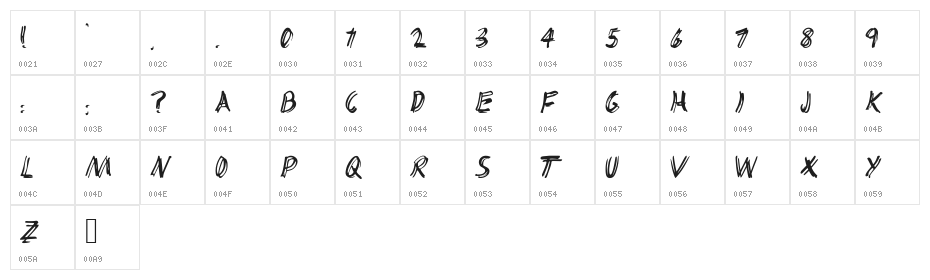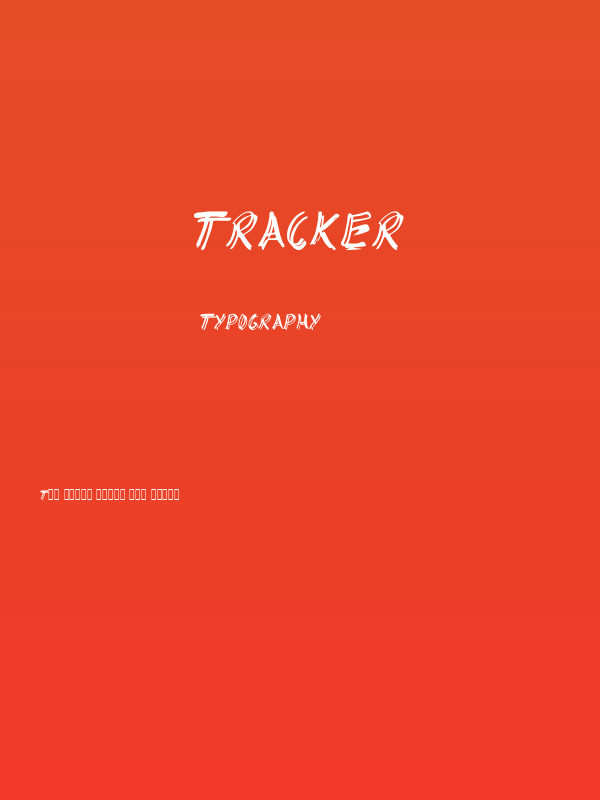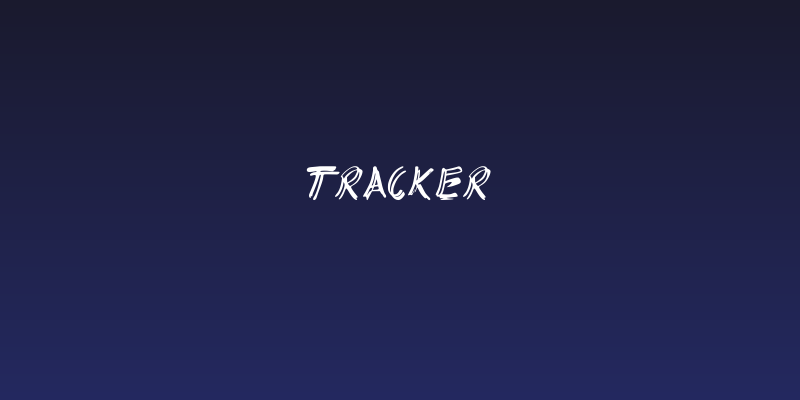
TRACKER Font
TRACKER Description
This font features a dynamic and energetic style, characterized by its bold, brush-like strokes that convey a sense of movement and spontaneity. The uppercase letters are particularly striking, with varying stroke widths that add a sense of depth and texture. The numbers and special characters maintain this lively aesthetic, ensuring consistency throughout. The overall impression is one of creativity and expressiveness, making it suitable for projects that require a bold statement.